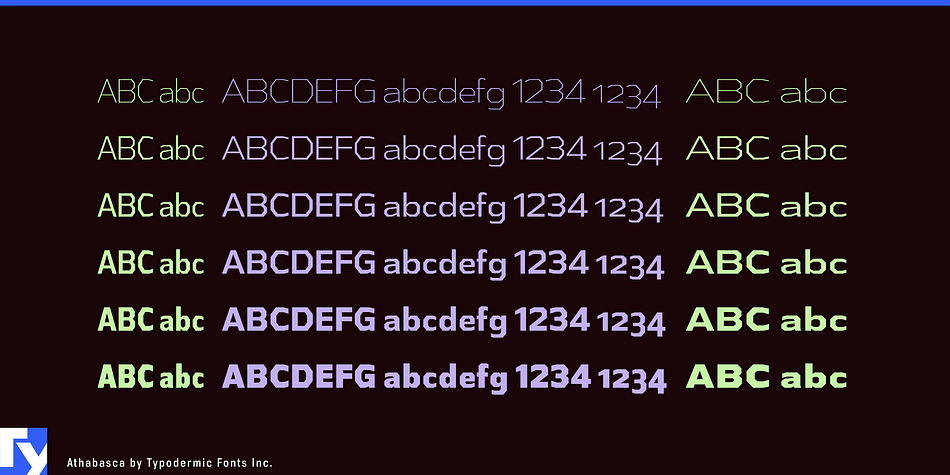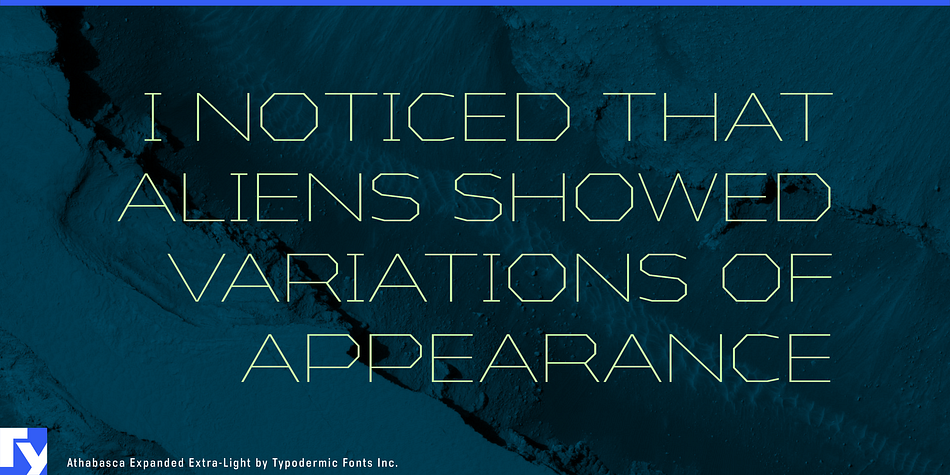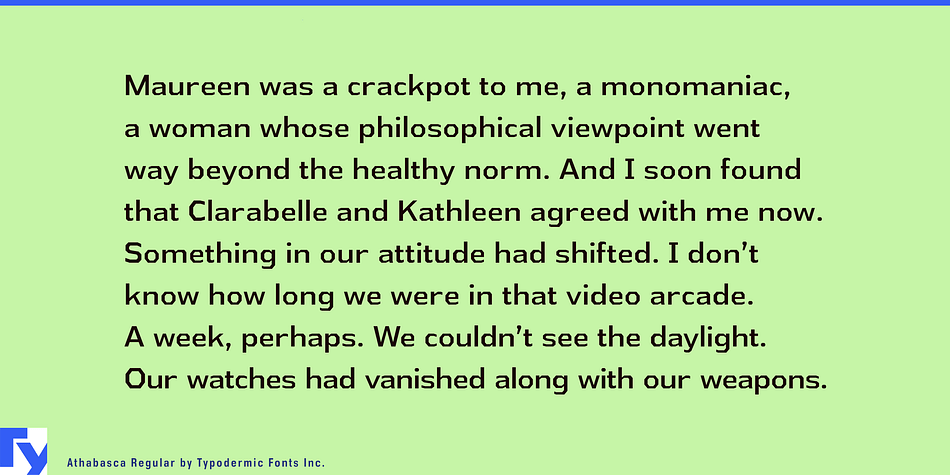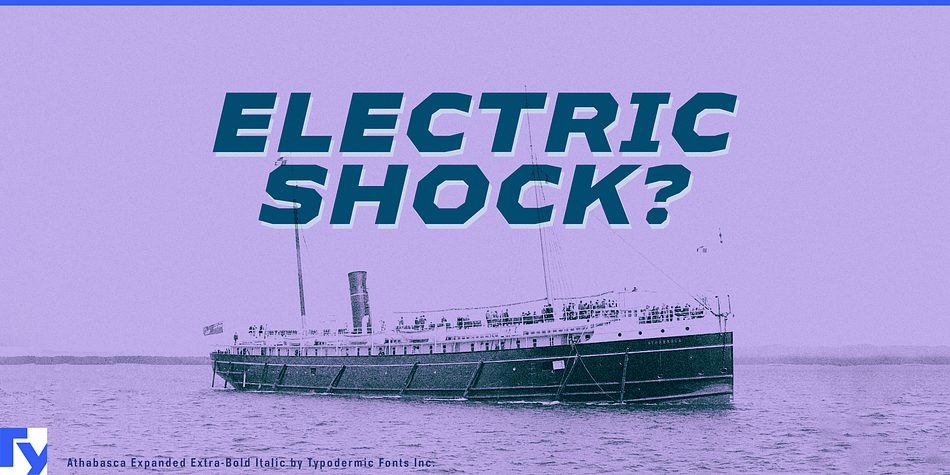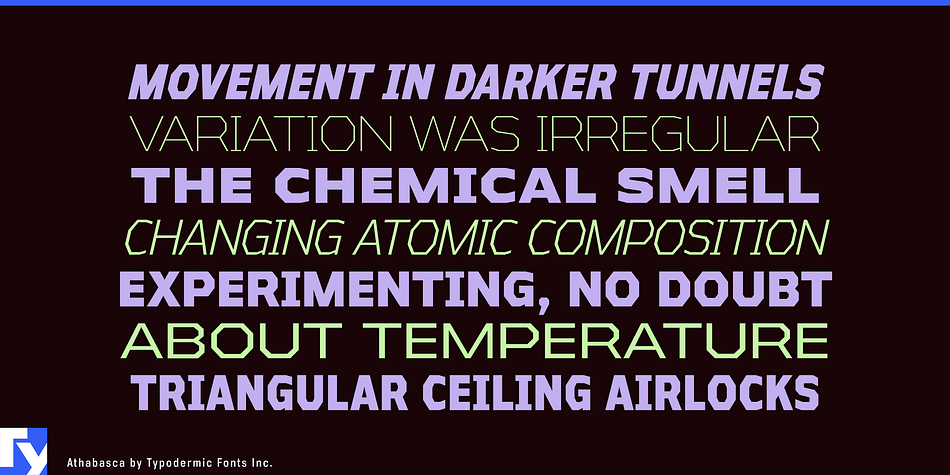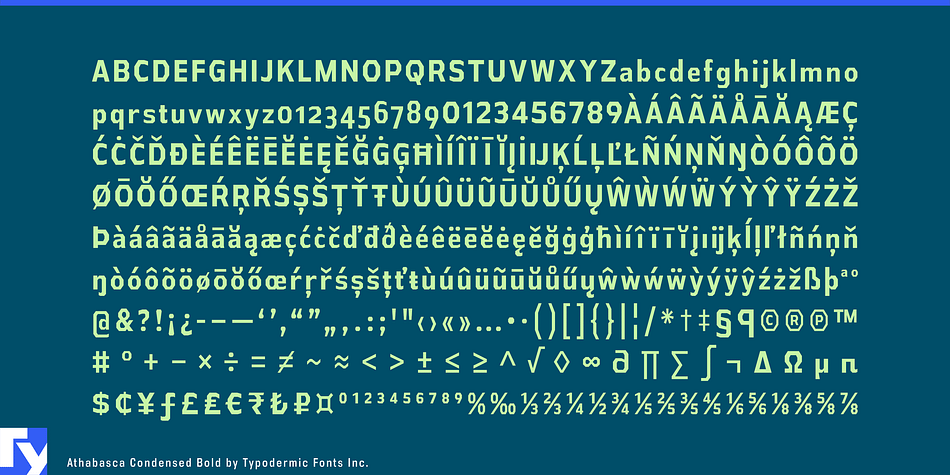
Athabasca is a sans serif font family. This typeface has thirty-six styles and was published by Typodermic Fonts Inc.
Athabasca is an angular, sans-serif typeface. There are 6 weights, 3 widths and italics. The capital I will automatically be replaced by a serifed I when followed by a lowercase L. In OpenType savvy applications, you can access old-style and tabular numerals.